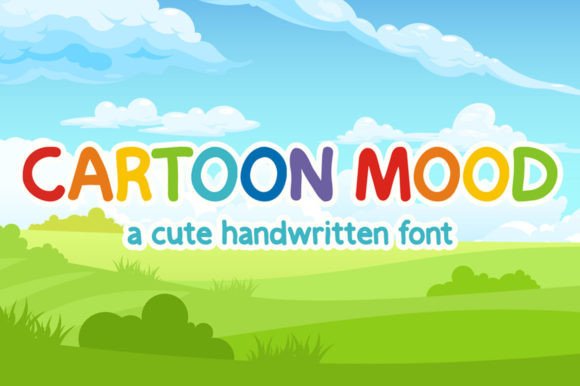
Introducing Cartoon Mood Font: Add a Cheerful Touch to Your Designs
Are you looking for a font that can instantly add a playful and lively touch to your designs? Look no further than Cartoon Mood Font! This attractive and bright handwritten font is perfect for creating a cheerful atmosphere in your branding, children-related designs, and eye-catching headlines.
What is Cartoon Mood Font?
Cartoon Mood Font is a unique and creative typeface that is designed to bring a smile to your audience’s face. Its handwritten style is both playful and elegant, making it suitable for a wide range of design projects. The font’s bright and cheerful appearance is sure to grab attention and leave a lasting impression.
Key Features of Cartoon Mood Font
- Handwritten style: Cartoon Mood Font has a distinctive handwritten style that adds a personal touch to your designs.
- Bright and cheerful: The font’s bright and vibrant appearance is perfect for creating a playful and lively atmosphere.
- Playful and elegant: Cartoon Mood Font strikes the perfect balance between playfulness and elegance, making it suitable for a wide range of design projects.
- Perfect for children-related designs: The font’s cheerful and playful appearance makes it ideal for designs aimed at children, such as kids’ party invitations, children’s books, and more.
Use Cases for Cartoon Mood Font
Cartoon Mood Font is a versatile typeface that can be used in a variety of design projects, including:
- Branding: Add a playful and cheerful touch to your brand’s identity with Cartoon Mood Font.
- Children-related designs: Create eye-catching and engaging designs for kids, such as party invitations, children’s books, and more.
- Headlines and titles: Use Cartoon Mood Font to create attention-grabbing headlines and titles for your blog posts, articles, and social media posts.
- Signage and posters: Create eye-catching signage and posters with Cartoon Mood Font that are sure to grab attention.
Why Choose Cartoon Mood Font?
With so many fonts available, why choose Cartoon Mood Font? Here are just a few reasons:
- Unique and creative: Cartoon Mood Font is a one-of-a-kind typeface that will set your designs apart from the rest.
- Easy to read: Despite its playful appearance, Cartoon Mood Font is easy to read and understand, making it perfect for body text and headlines.
- Customizable: Cartoon Mood Font can be customized to fit your design needs, making it a versatile choice for any project.
Tips for Using Cartoon Mood Font
Here are a few tips for getting the most out of Cartoon Mood Font:
- Use it sparingly: While Cartoon Mood Font is perfect for headlines and titles, it’s best to use it sparingly in body text to avoid overwhelming your audience.
- Pair it with other fonts: Experiment with pairing Cartoon Mood Font with other fonts to create a unique and visually appealing design.
- Adjust the size and color: Play around with different sizes and colors to find the perfect combination for your design.
| Font Name | Cartoon Mood Font |
| Author | ELYsART |
Cartoon Mood Font is a unique and creative typeface that is perfect for adding a playful and cheerful touch to your designs. With its bright and vibrant appearance, handwritten style, and versatility, it’s ideal for a wide range of design projects. Whether you’re a designer, crafter, or DIY enthusiast, Cartoon Mood Font is sure to become a favorite in your font collection.